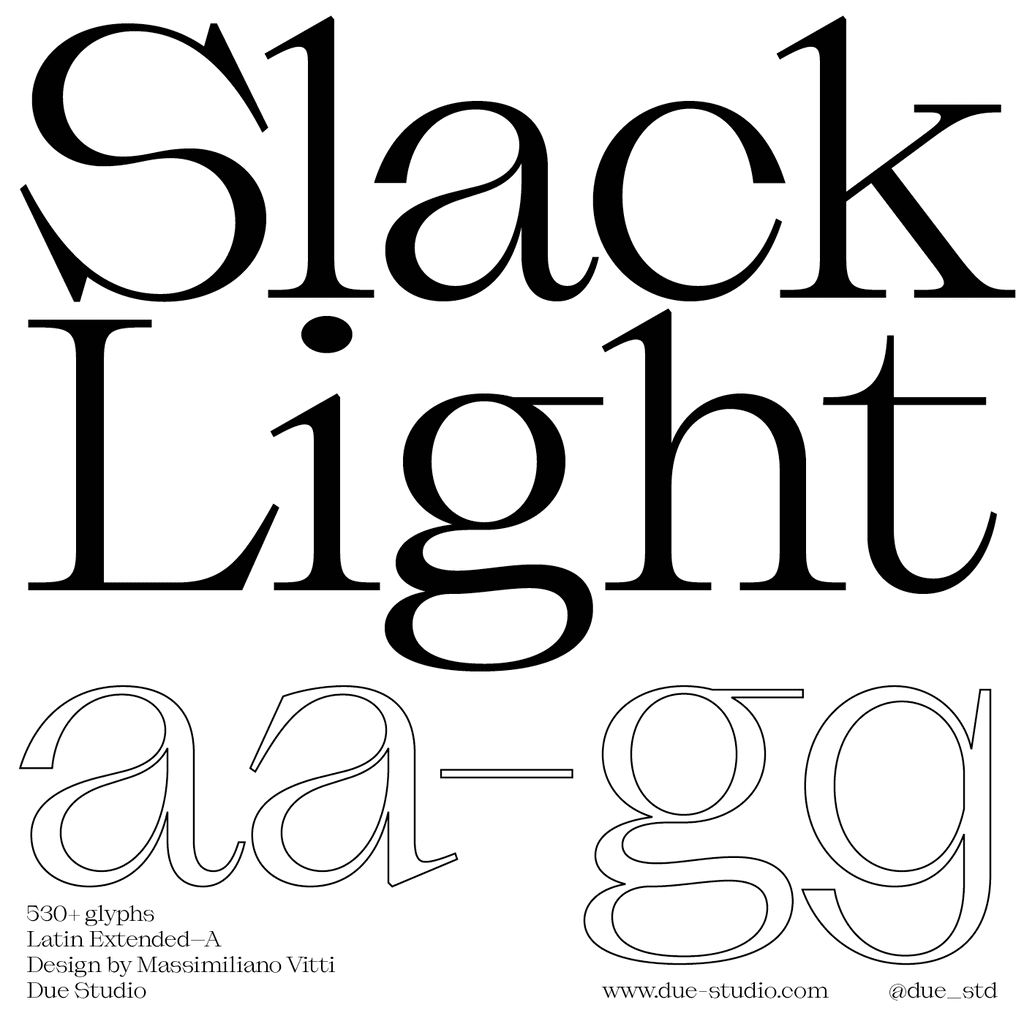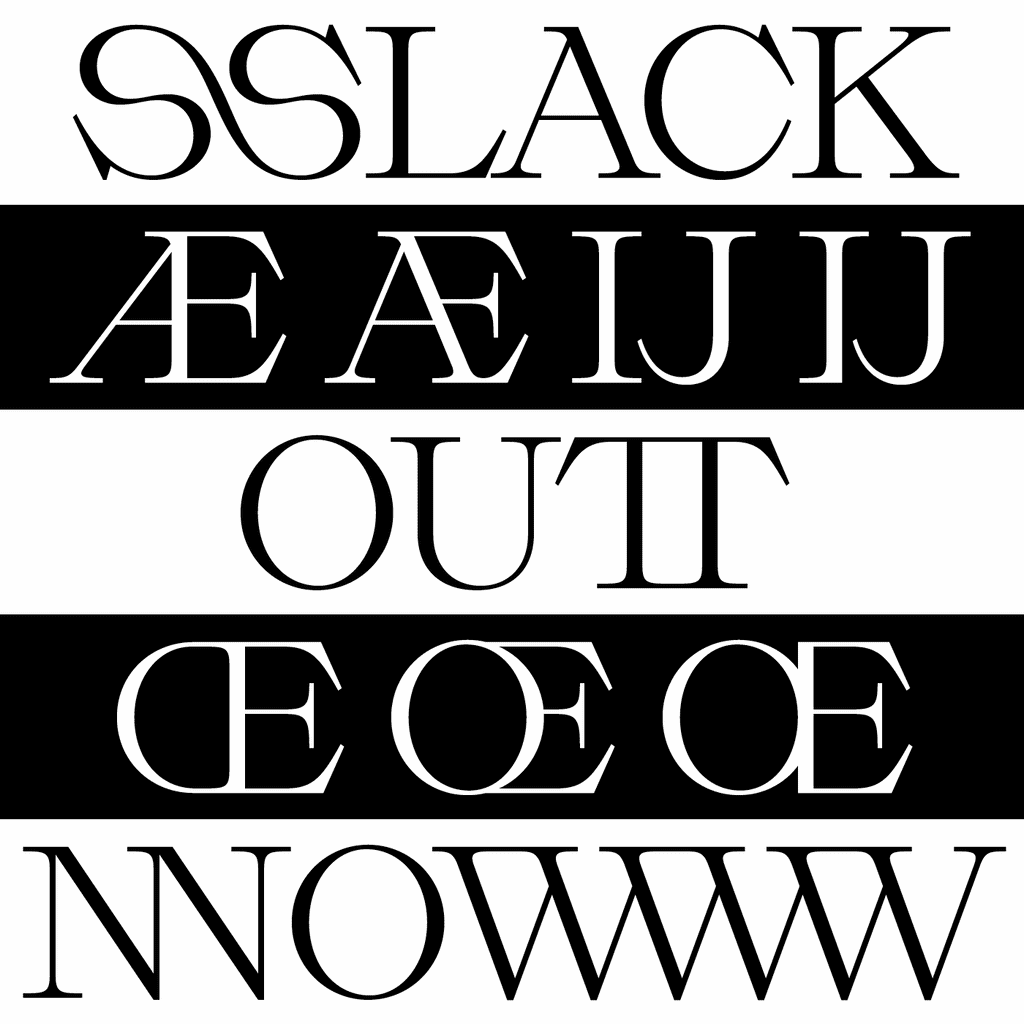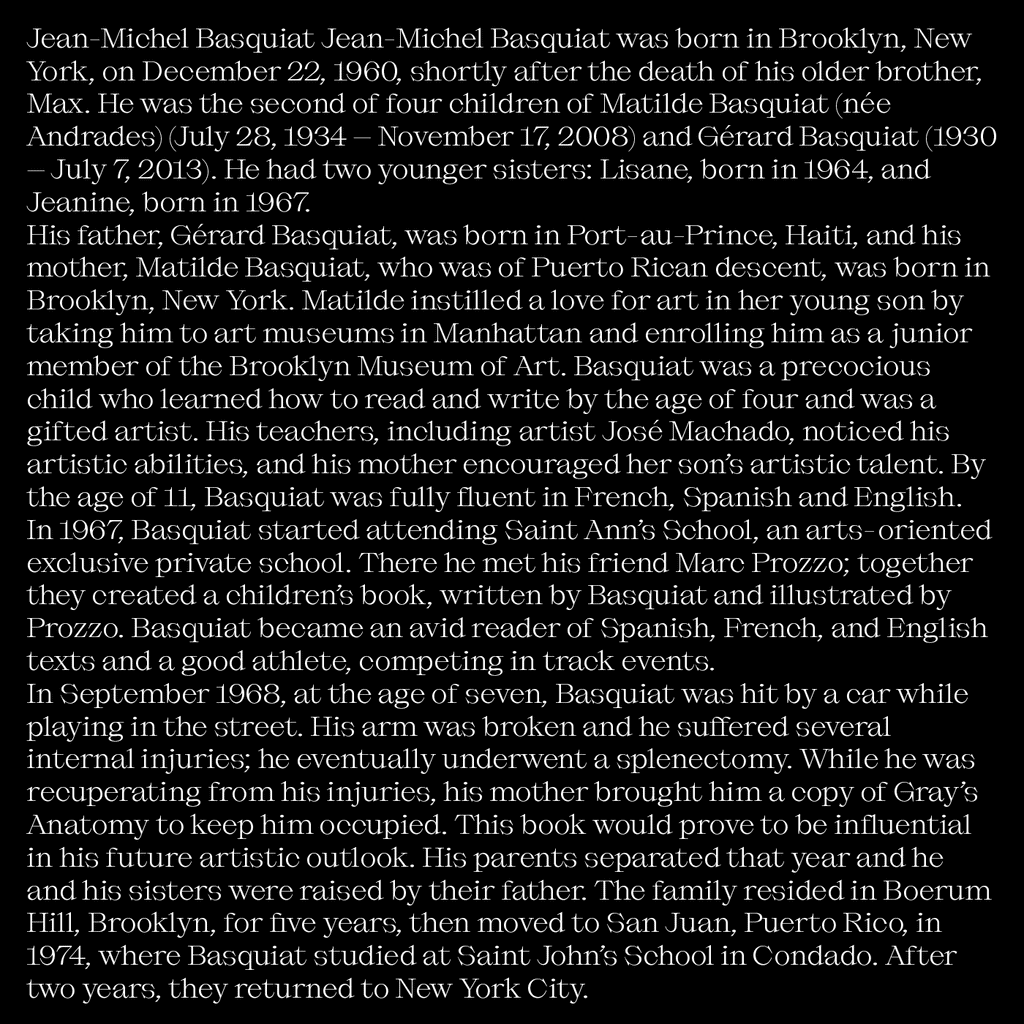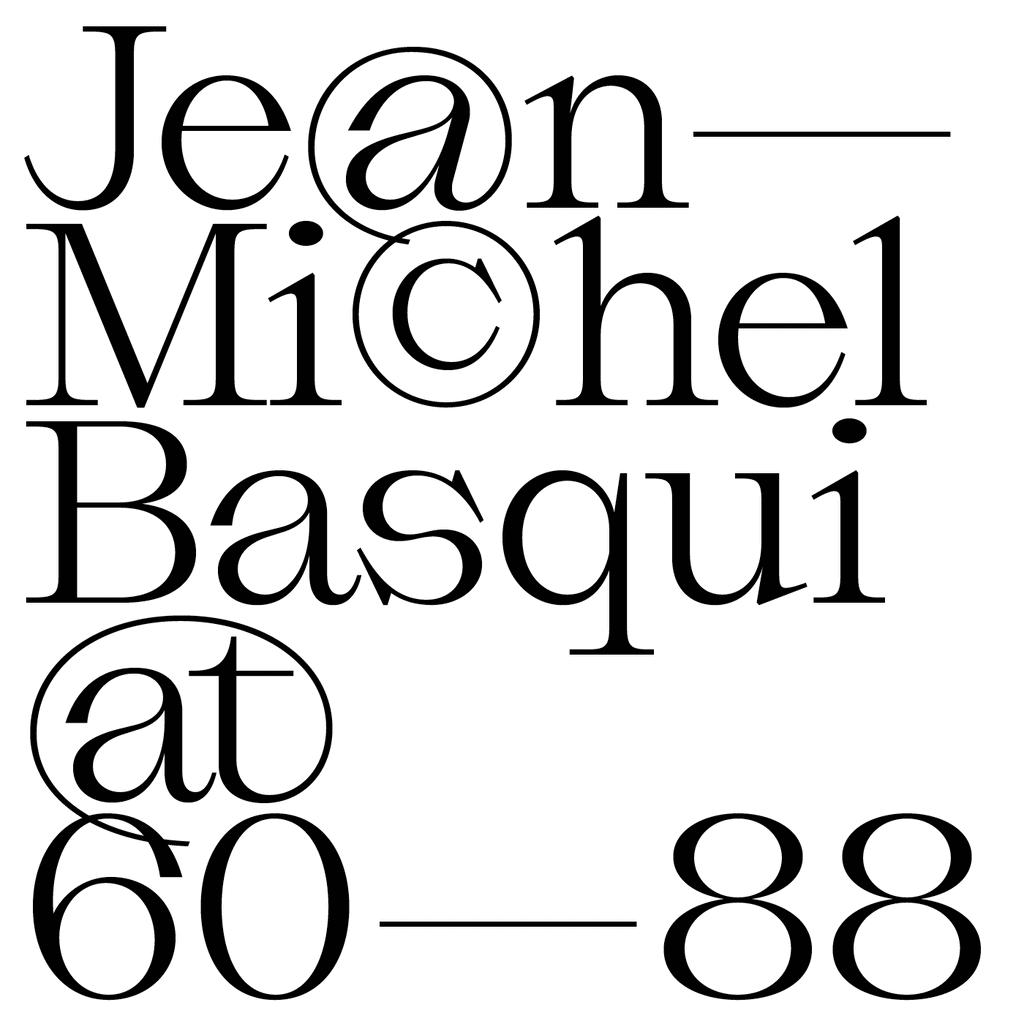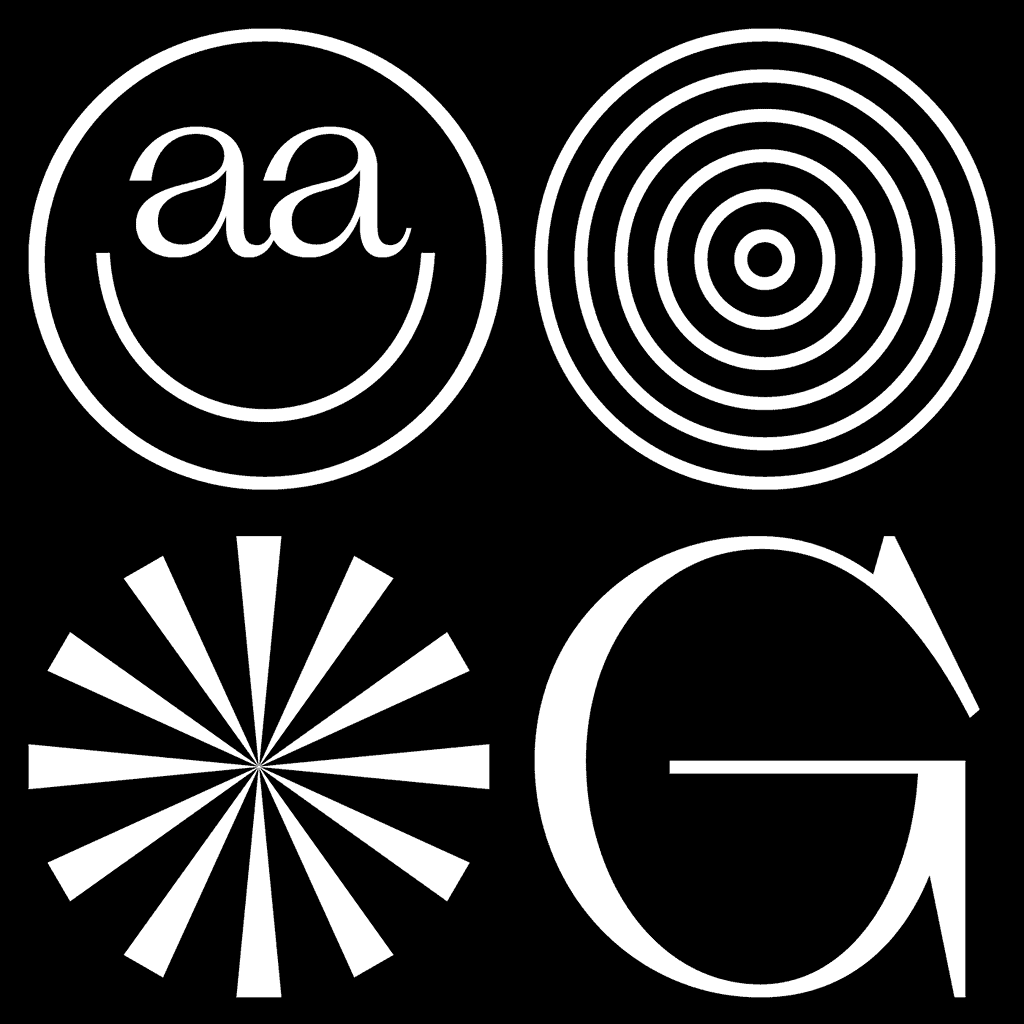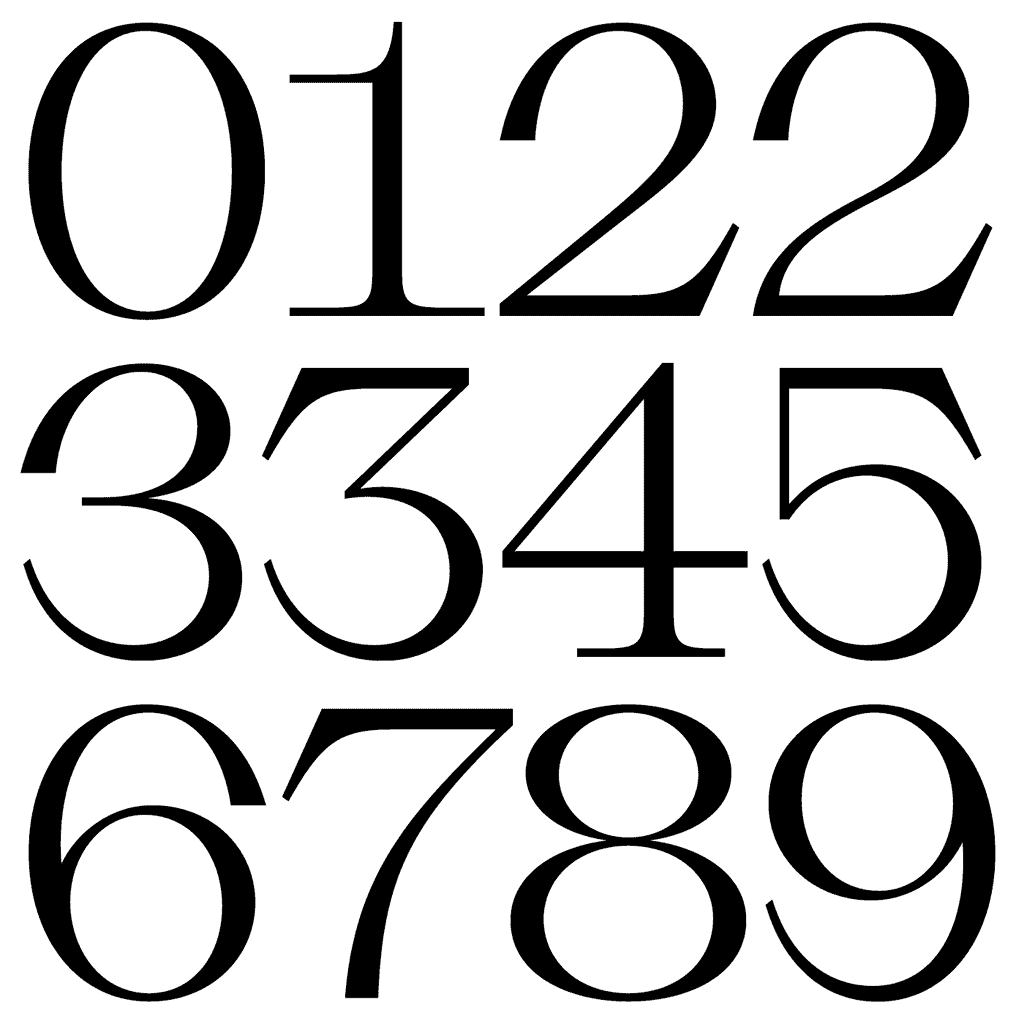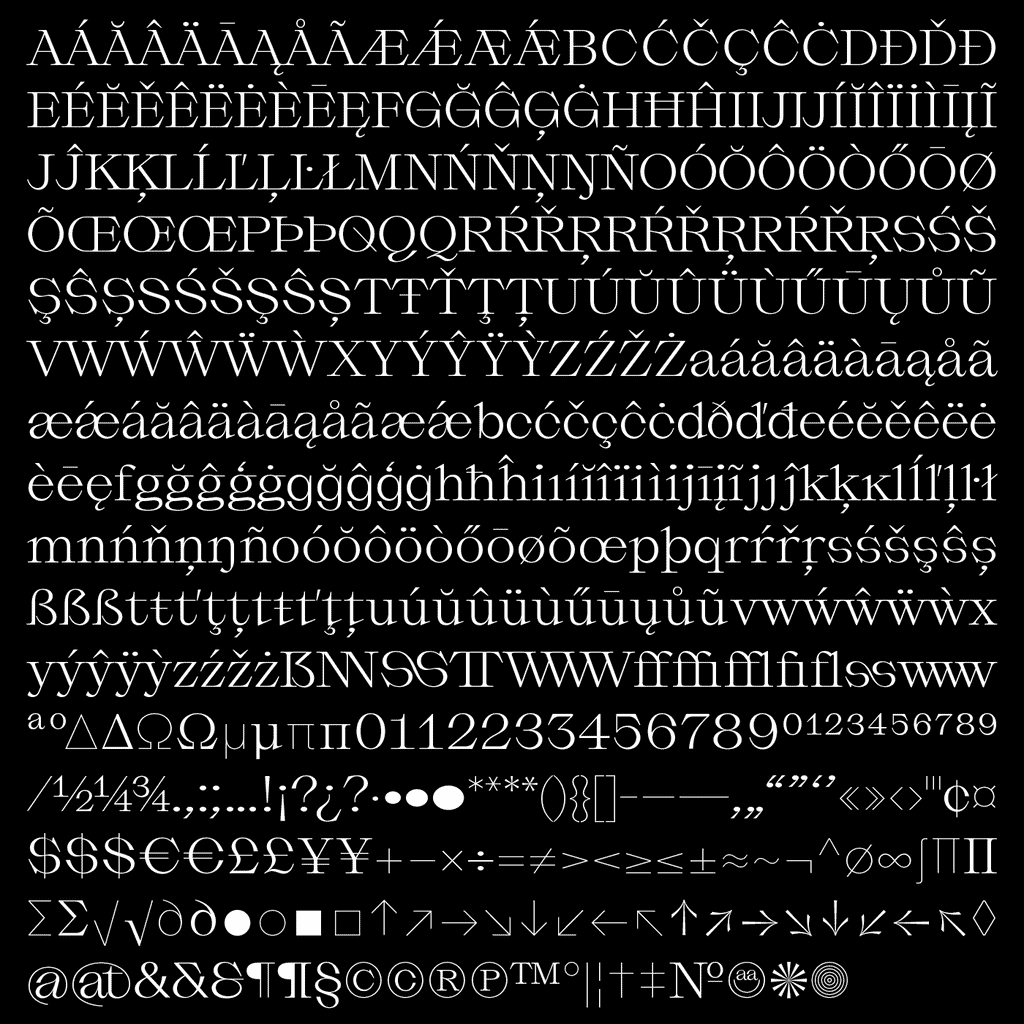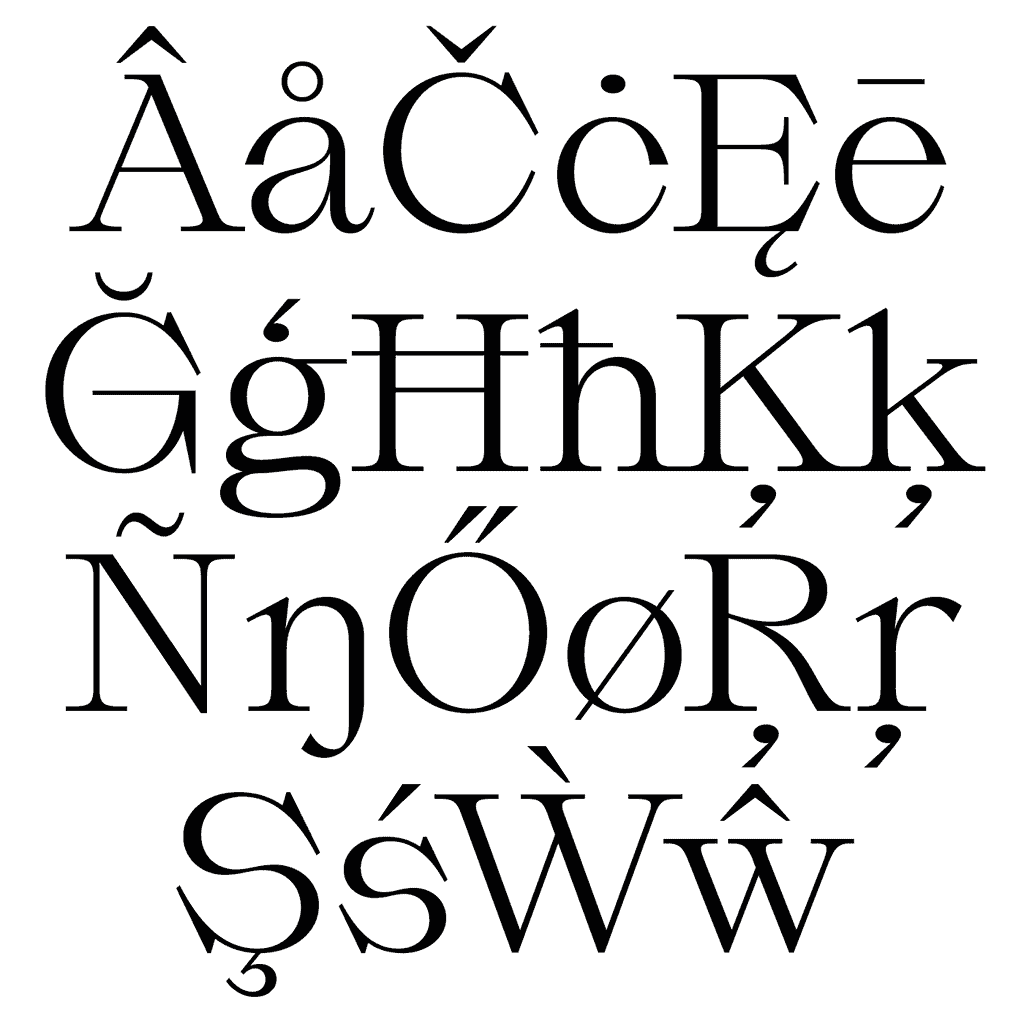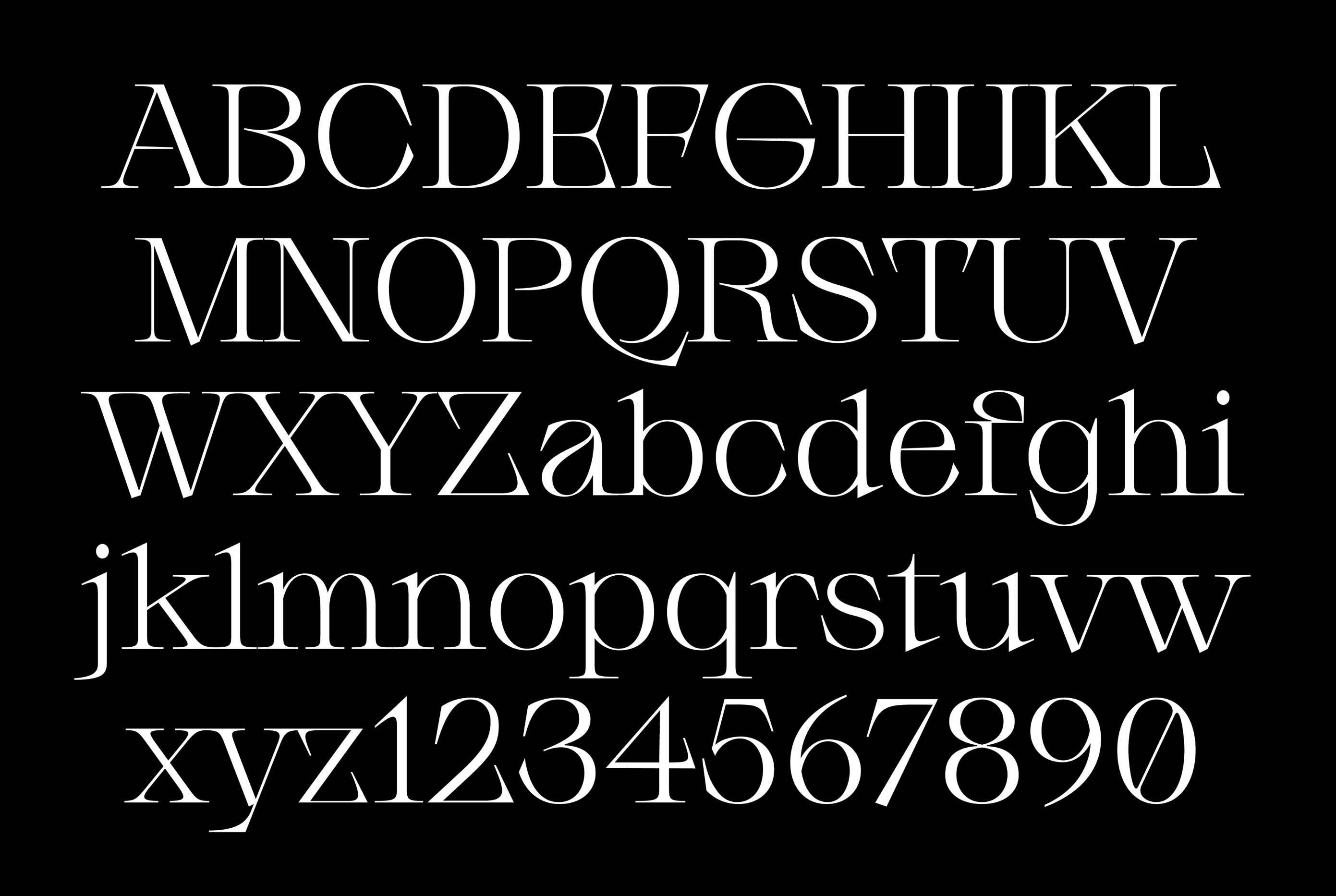
Slack Light
Due Studio
Slack is a contemporary serif typeface characterised by tight apertures and serifs that simulate the dynamic movement of slackline webbing—evoking the sensation of walking, running, or balancing. Its design blends curved elegance with a deceptive classicist feel, underscored by straight, edgy alternates.
Crafted with over 530 glyphs and a diverse array of stylistic sets, Slack offers versatility within its single Light weight. Its unique aesthetic, inspired by the fluidity and tension of slacklining, makes it ideal for creating impactful and distinctive typographic designs.
- Total glyphs: 530+
- Support Latin extended-A
- Contextual alternates
- Case-sensitive forms
- Ligatures
- Fractions
- Localised forms
- Stylistic alternates